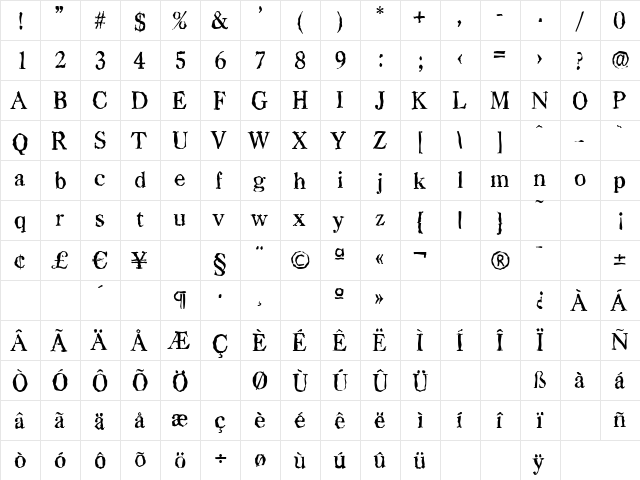
CasadRandom-Medium Regular
Design Context for CasadRandom-Medium Typeface
CasadRandom-Medium is a composed and adaptable typeface that performs quietly and consistently across a wide range of design contexts.